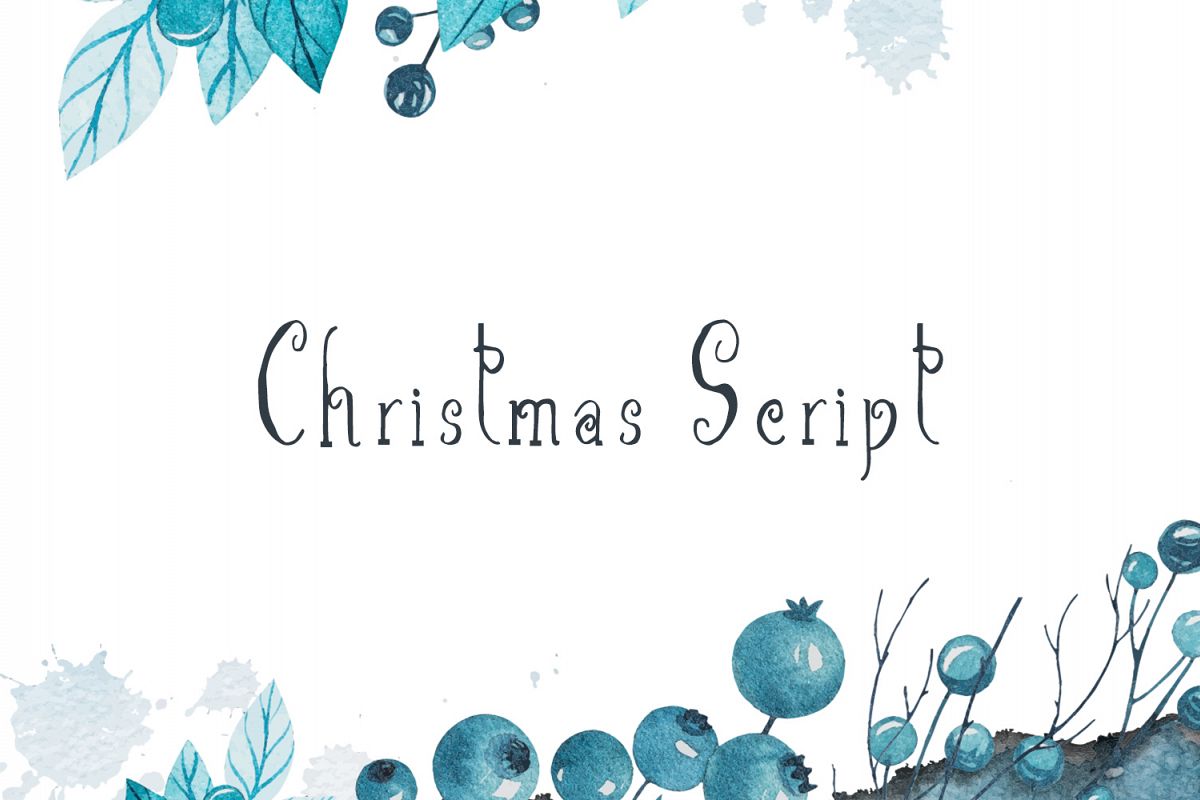
Christmas Script Font
ChristmasScriptRegular
Christmas Script a hand-scripted fonts, carefully designed to work together in harmony for creating masterful typographic designs in a flash!
Included in the pack is uppercase and lowercase with numbers and some special characters for you to add authenticity to your designs This font is suitable for Christmas, which will come soon, or for something a little feminine.Christmas script is perfect for adding a personal touch to all of your design projects. Great for cards, invitations, t-shirts, logos, quotes, apparel, advertising, image overlays, greeting cards, web banners, and branding.